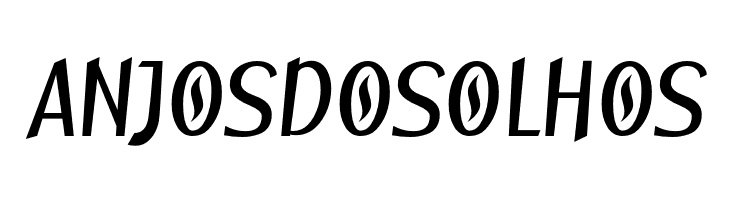
A dynamic, slightly italicized font with sharp, angular strokes and a modern flair.
A modern, outlined font with geometric structure and consistent stroke width.
A bold, cursive font with thick strokes and a flowing, dynamic style.
A bold, hollow font with a three-dimensional, futuristic style.
A bold, geometric font with a filled, block-like design and three-dimensional effect.
A bold, condensed, and italicized font with a dynamic and modern style.
A bold, three-dimensional font with a strong shadow effect and geometric style.
A futuristic, geometric font with a retro vibe and unique angular design.
A bold, modern sans-serif font focused on clarity and readability.
A playful, bold, hand-drawn style font with a whimsical and casual feel.
A bold, angular font with a left-leaning, dynamic style, ideal for energetic designs.
A bold, playful font with a 3D shadow effect and cartoonish style.
A playful handwritten font with rounded, consistent strokes and a casual style.
A bold, brush-style font with dynamic, energetic strokes.
A dynamic, flowing script font with a cursive, handwritten style.
A modern, elegant script font with flowing, connected strokes.
A bold, italic font with angular, dynamic characters for impactful designs.
A bold, expressive script font with dynamic, cursive letterforms.
A dynamic and expressive handwritten font with fluid, interconnected strokes.
A cursive, handwritten-style font with elegant, flowing strokes.
A bold, brush-stroke style font with dynamic and artistic flair.
A flowing, cursive italic font with elegant, connected strokes.
A dynamic, expressive handwritten font with fluid strokes and elegant slant.
A fluid, cursive handwritten font with an elegant and personal style.
A dynamic and elegant script font with flowing, cursive letterforms.
A casual, handwritten script font with a flowing, natural style.
A bold, dripping graffiti-style font with a rebellious edge.
A bold, high-contrast serif font with sharp serifs and a dramatic style.
A bold, high-contrast serif font with dramatic strokes and sharp serifs.
An elegant, cursive font with flowing, intricate designs and graceful loops.
A dynamic, expressive handwritten font with fluid, flowing letterforms.
A fluid and elegant handwritten font with dynamic strokes.
A decorative script font with elegant, flowing letterforms and cohesive design.
A bold, flowing script font with decorative flourishes and a modern aesthetic.
A playful, handwritten font with rounded edges and a casual style.